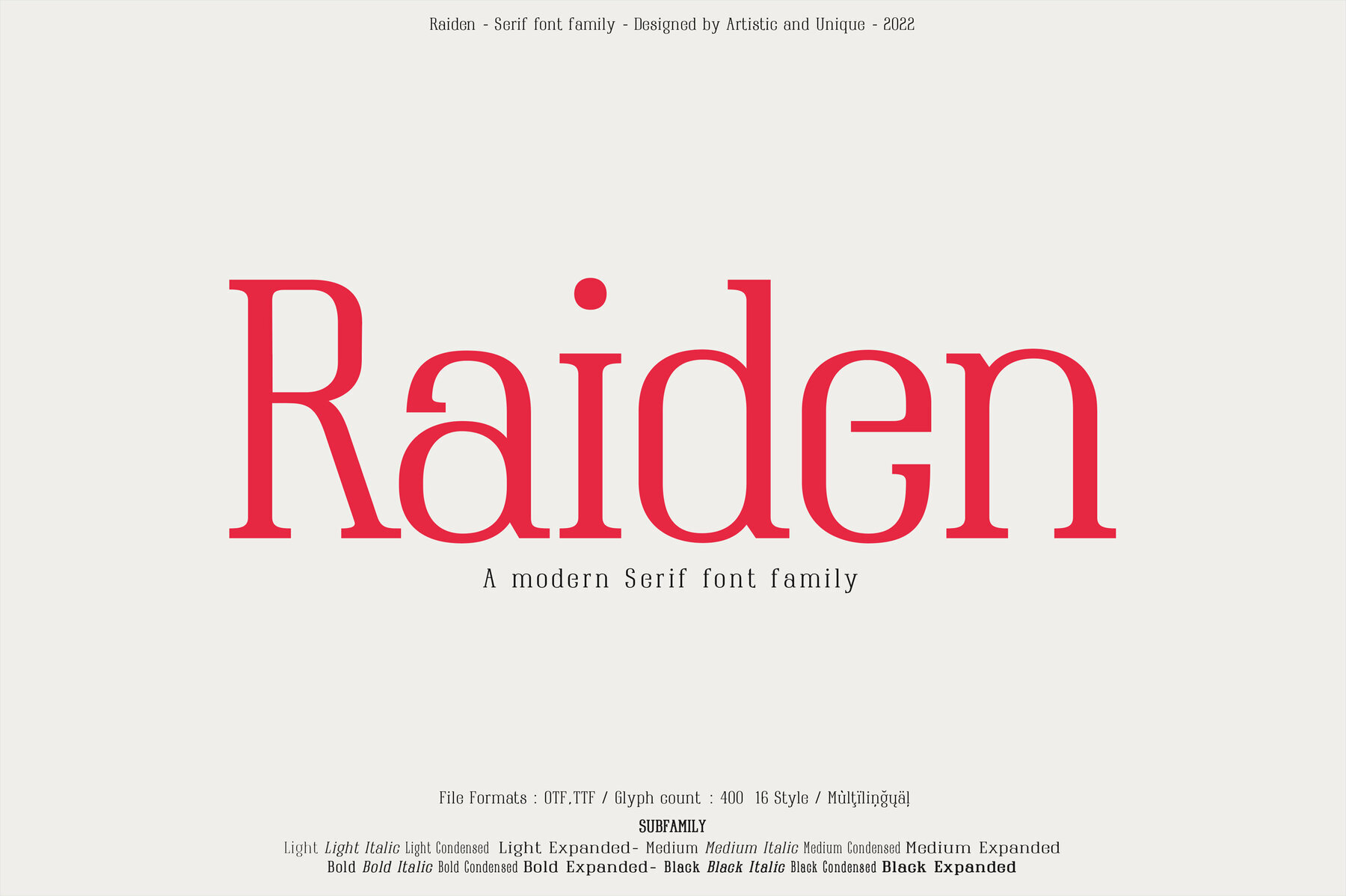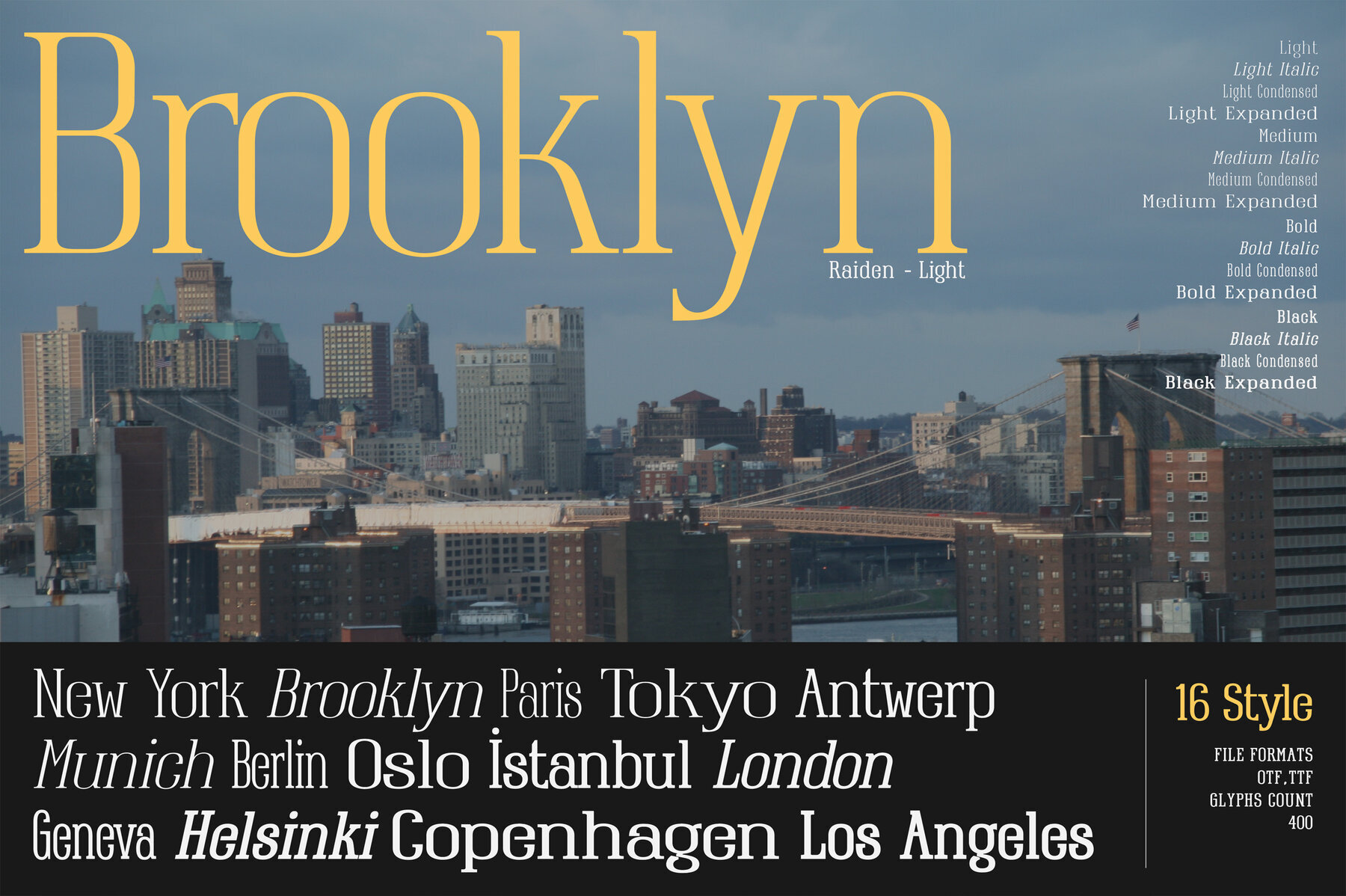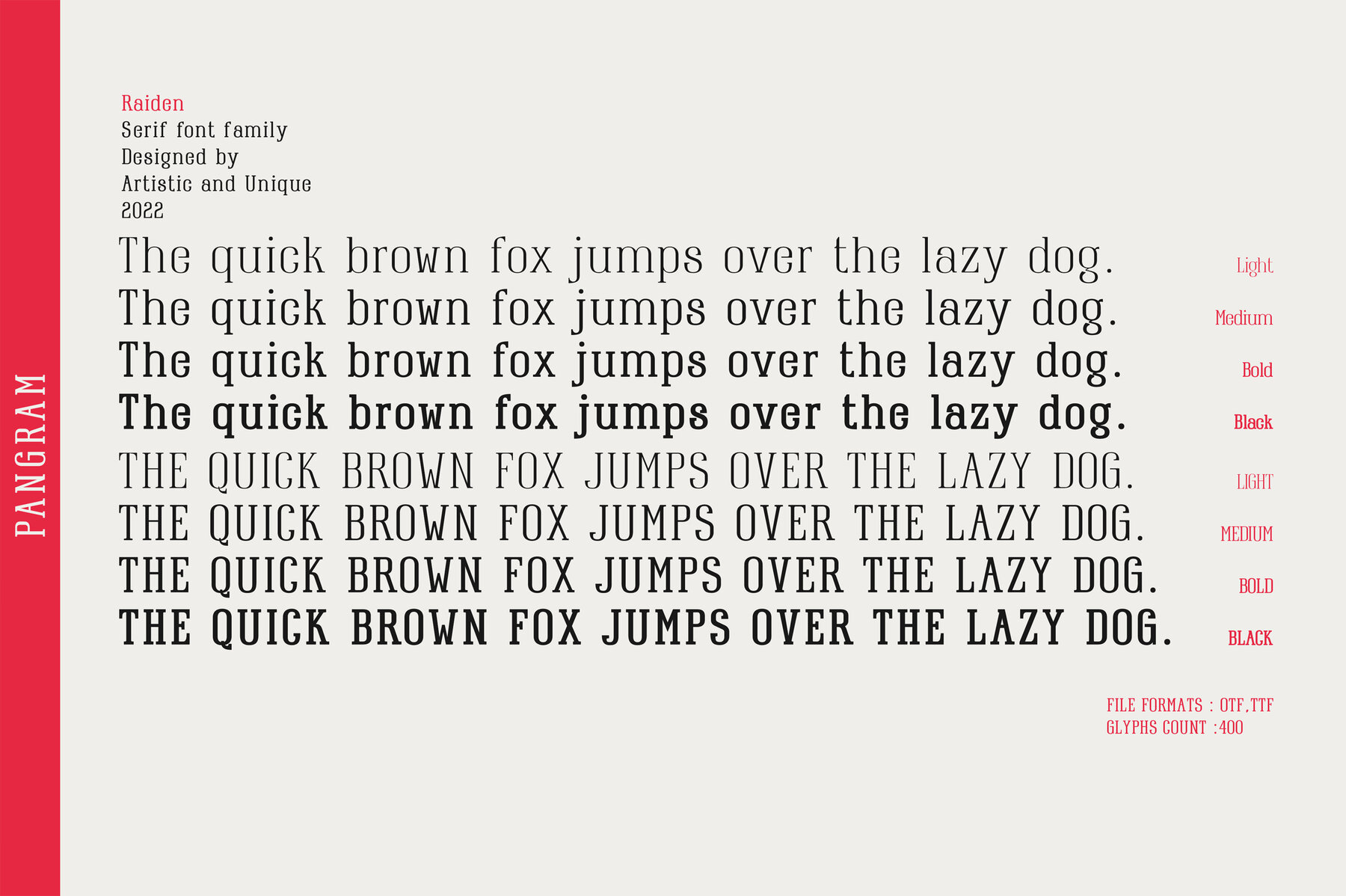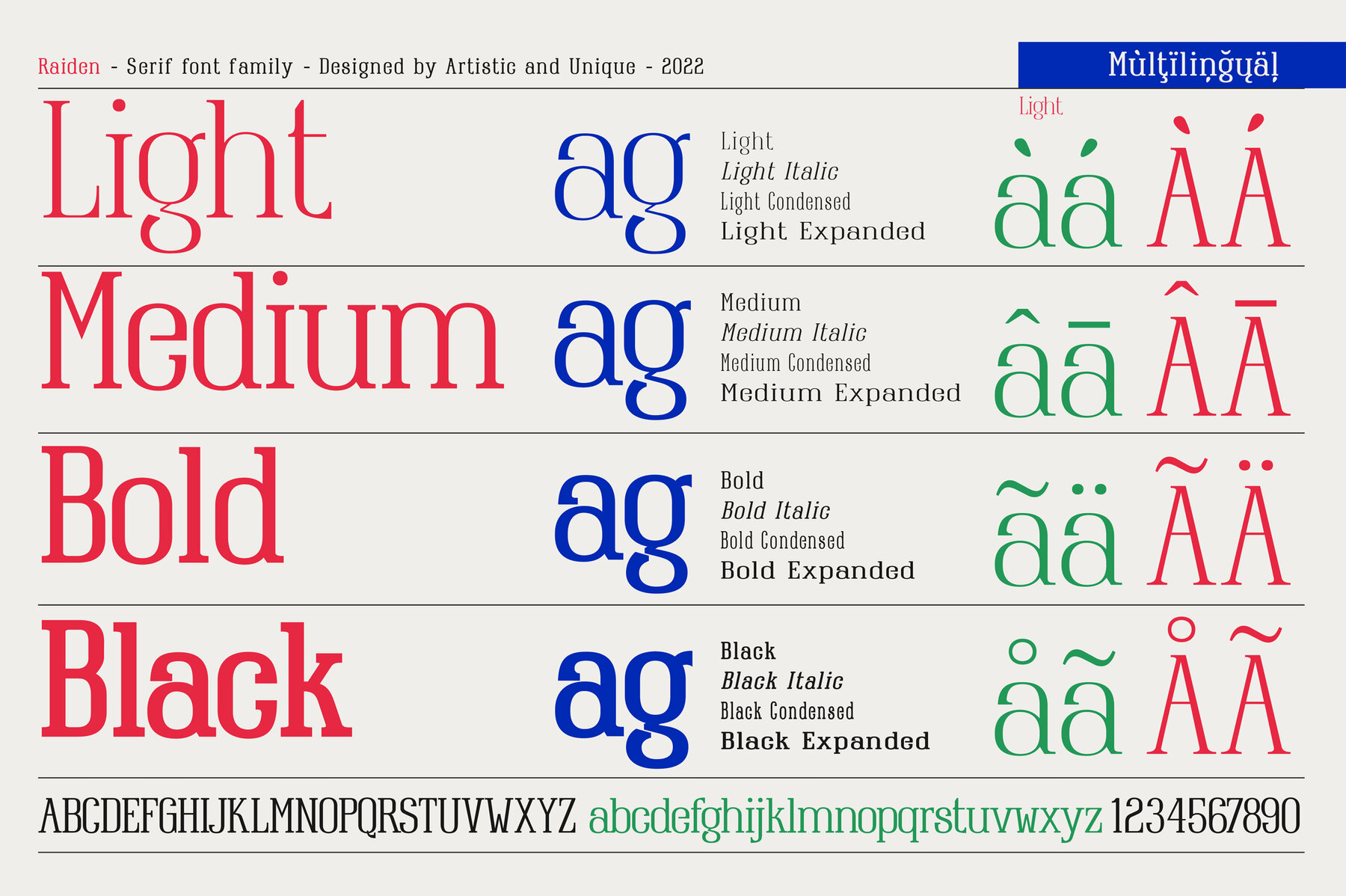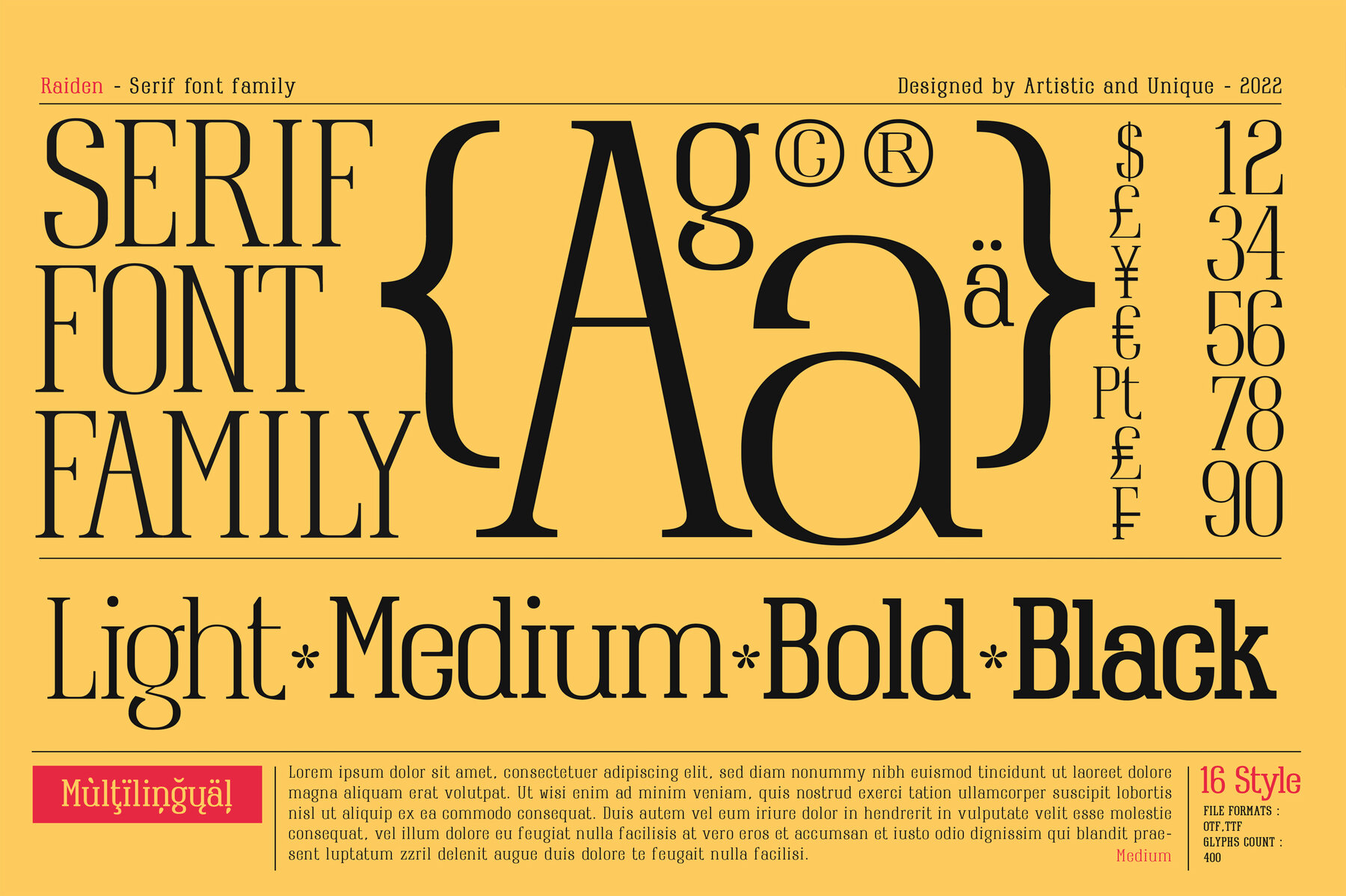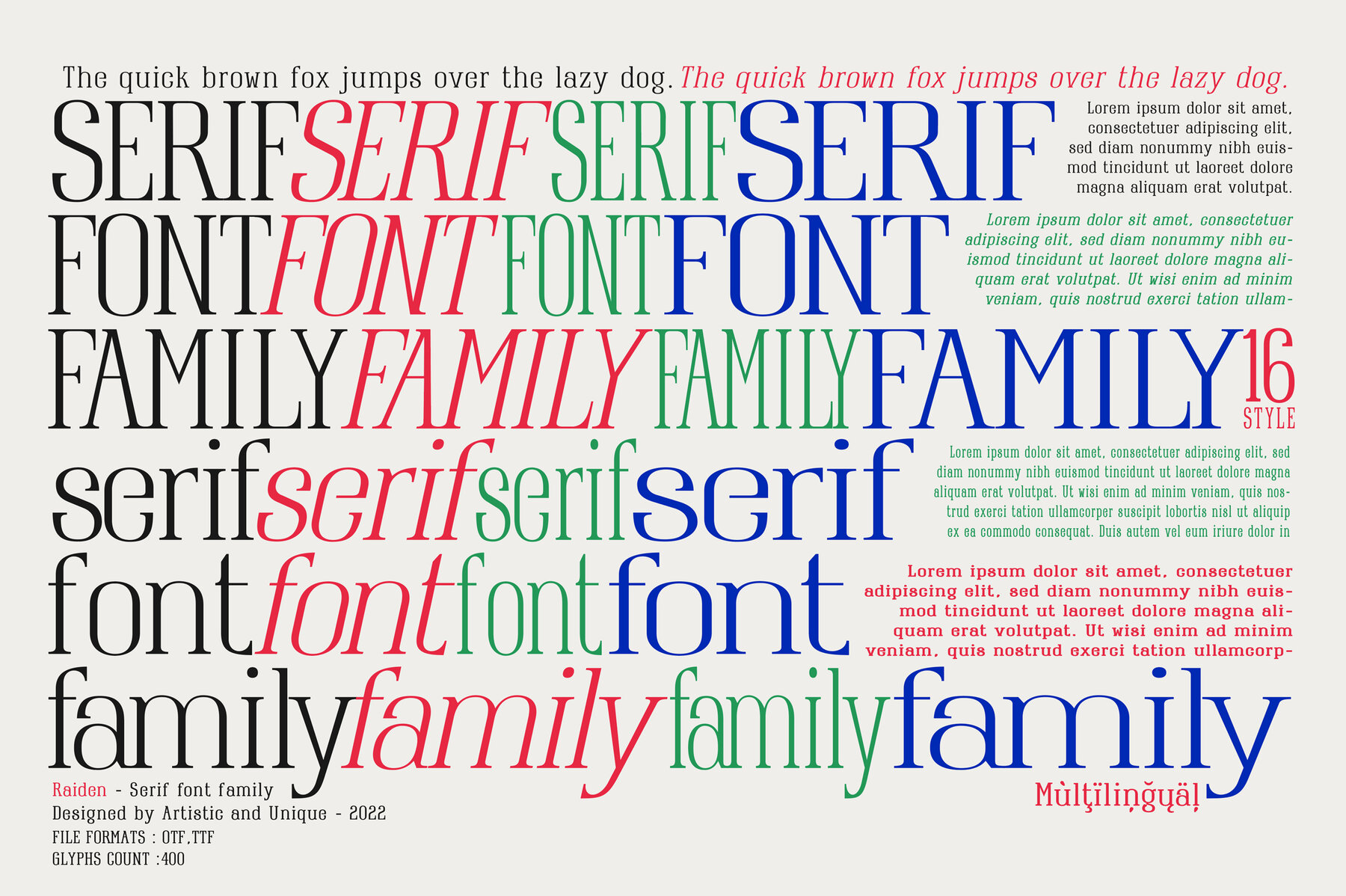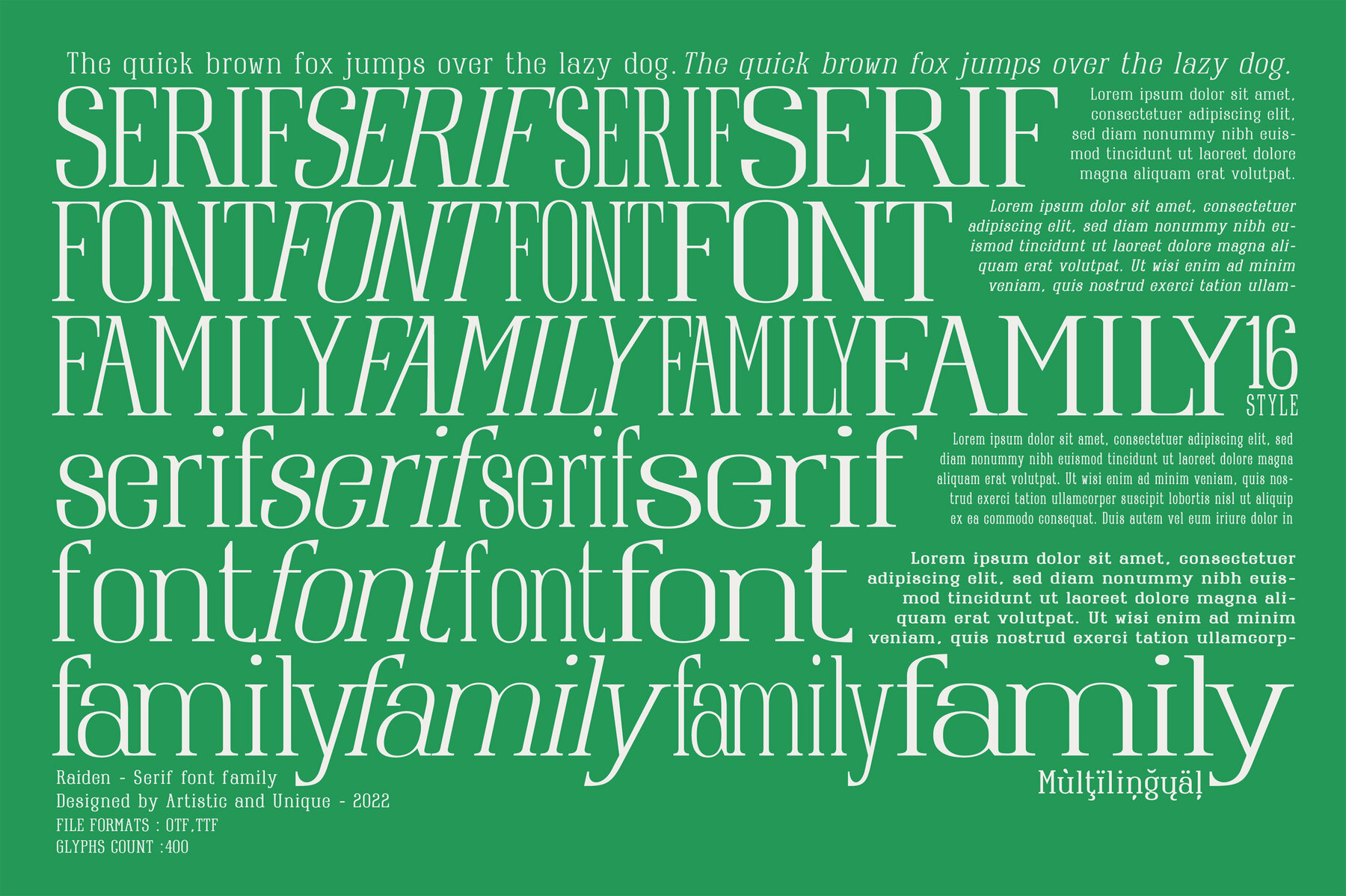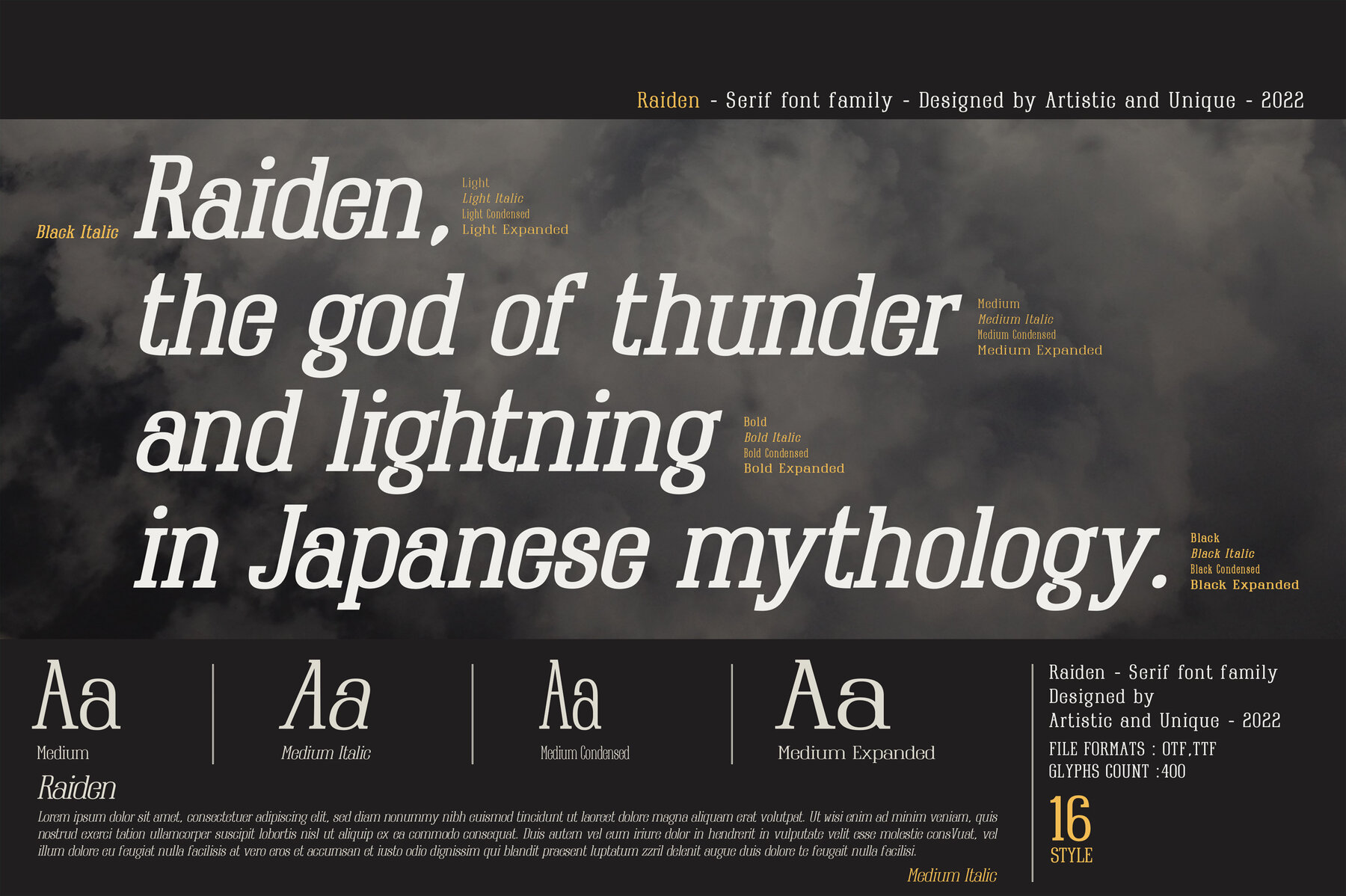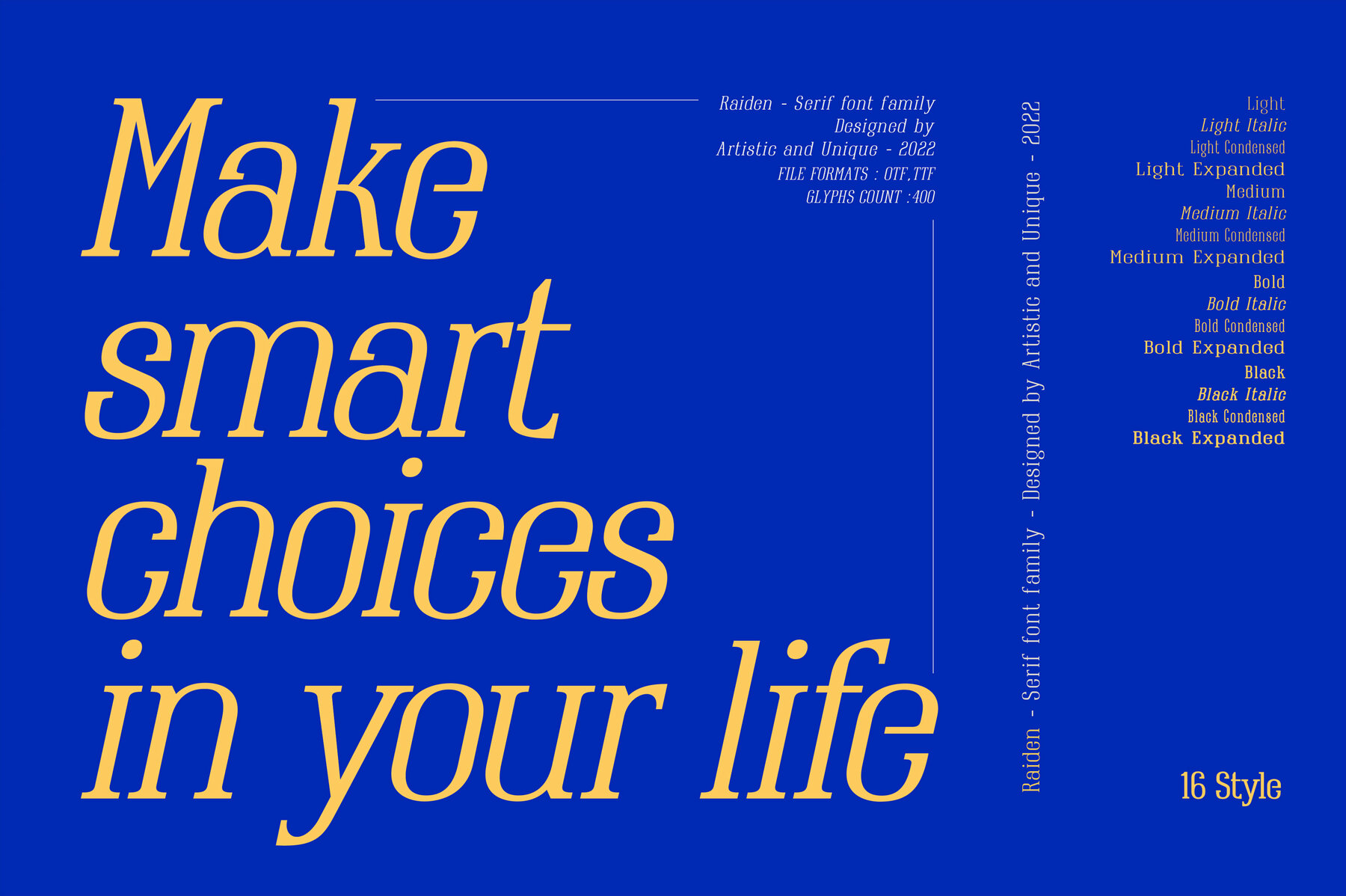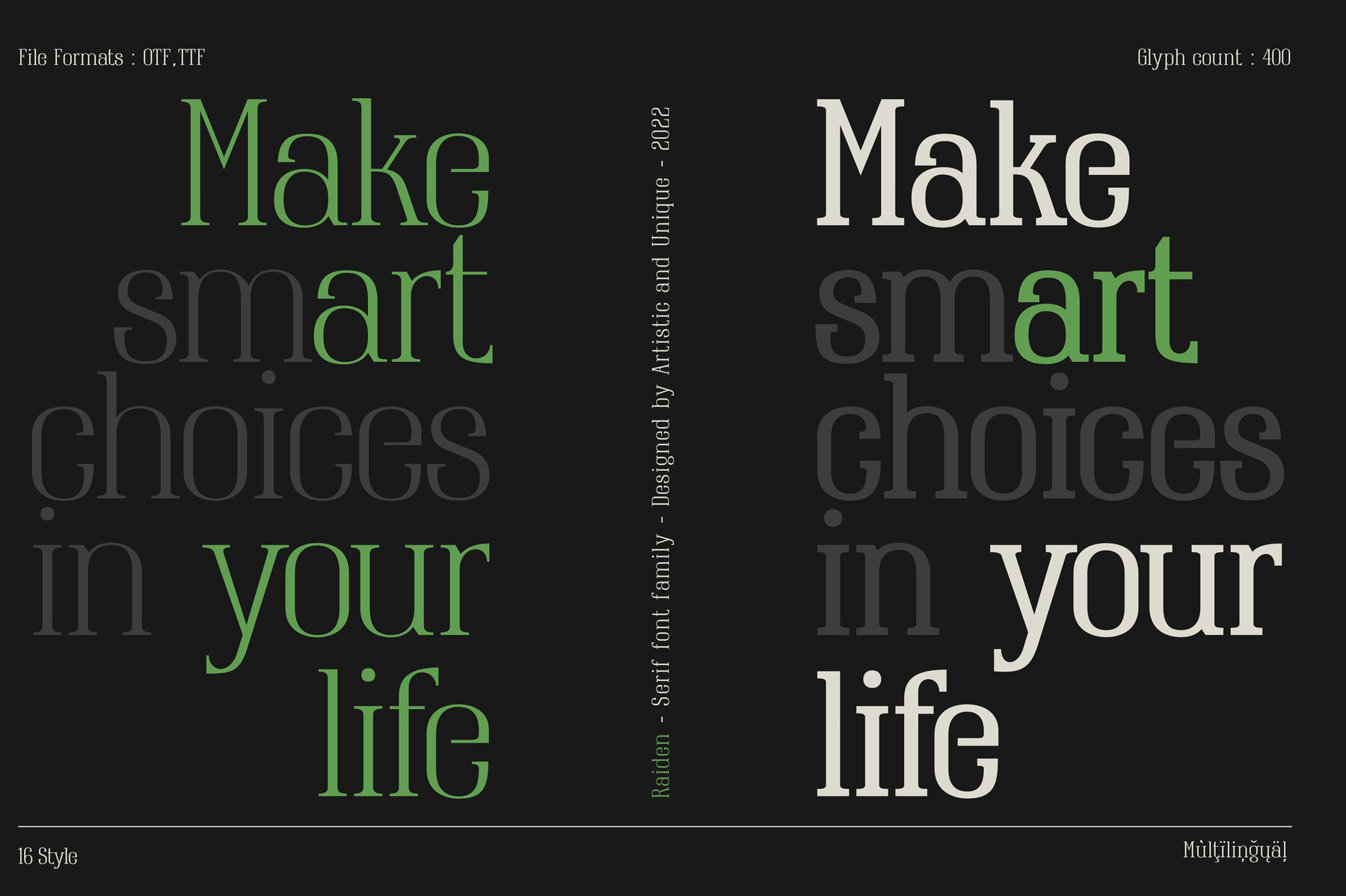
Raiden Font
Raiden Serif Font Family
Experience the distinct elegance of the Raiden serif font family, a remarkable collection designed to captivate with its unique body structure, character height, and width. Comprising 16 styles and crafted with 400 glyphs, Raiden seamlessly supports multilingual projects, offering a multitude of possibilities for innovative design endeavors. Whether you're exploring modern-elegant or classic design alternatives, Raiden's timeless structure is your perfect companion.
- 16 distinctive styles for versatile design applications
- 400 glyphs that enhance multilingual support
- Ideal for books, magazines, and newspapers
- Perfect for editorials, headlines, and websites
- Excellent for logos, branding, and advertising
Discover the creative potential of Raiden by combining uppercase and lowercase letters for stylish titles and text. Let this versatile font family elevate your design projects, making them truly stand out in a competitive world.